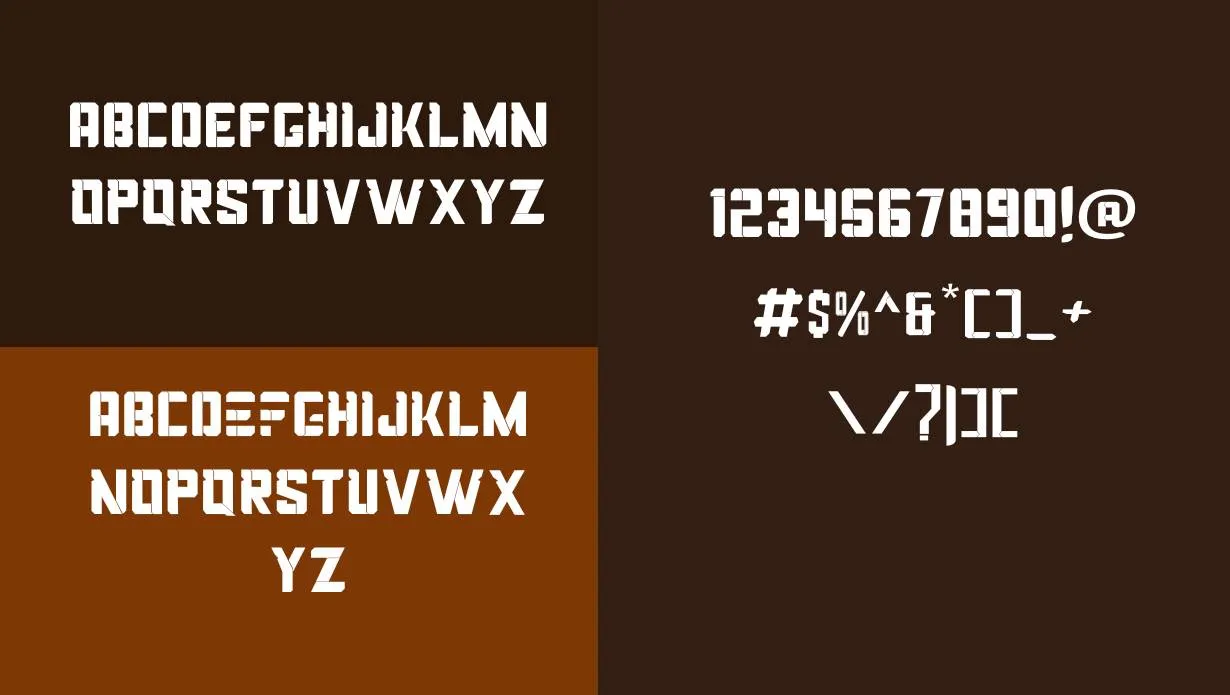
Cosmos Futuristic Font offers a peek into the future with its stylish and creative design. The characters give off a contemporary, technology-inspired look as if they were taken from a more advanced time. This font is perfect for projects looking to achieve a cutting-edge, futuristic feel.
It adds a touch of innovation and style, like a portal to a world of advanced technology and progress. Cosmos Futuristic Font propels the text into the future, offering a glimpse of what’s to come with its avant-garde design.